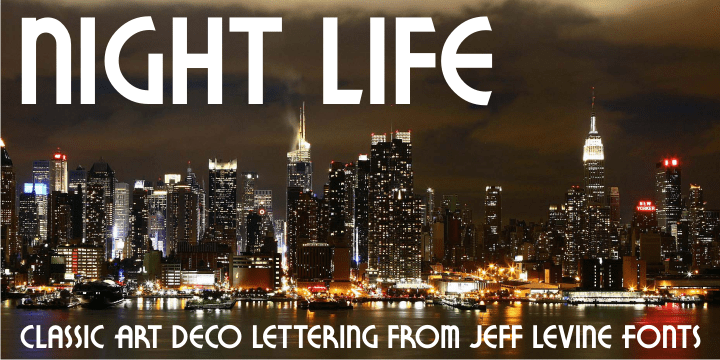
Night Life
Night Life JNL follows the classic lettering forms of the Art Deco era of the 1930s and 1940s.
On the upper case letters, the A,B,E,F,H,K,P and R have extended horizontals, while the lower case a,b,e,f,h,k,p and r have those extensions removed and are more traditional in design.